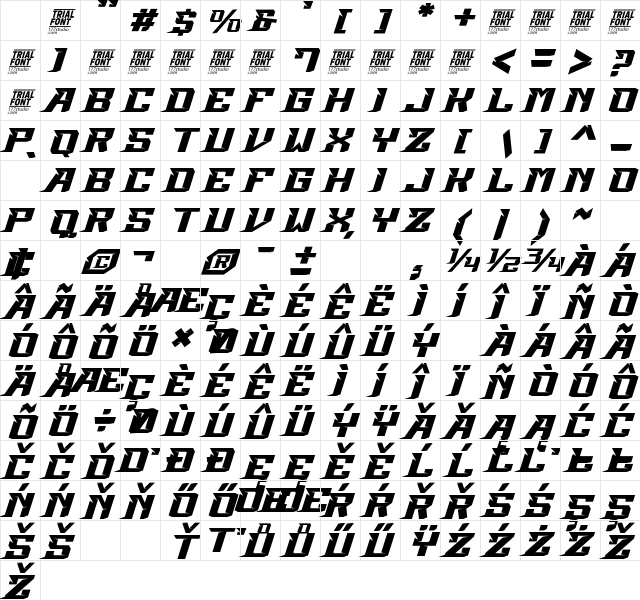
Thrive Sports Demo brings high-energy athletic personality to the page - its confident, muscular forms are built for impact. The slanted form adds forward momentum and visual energy.
Pro Tip: Use Thrive Sports Demo in all-caps headlines where its athletic energy can fully express itself. Pair with a solid, simple sans for supporting text.